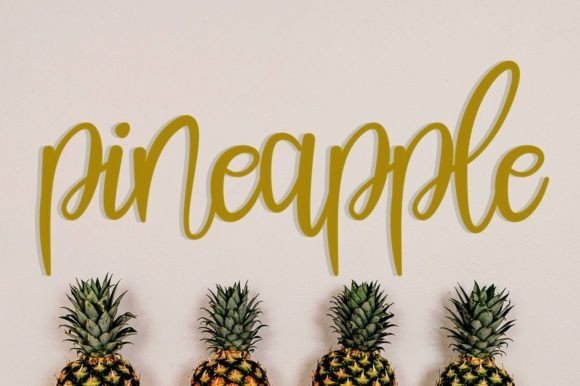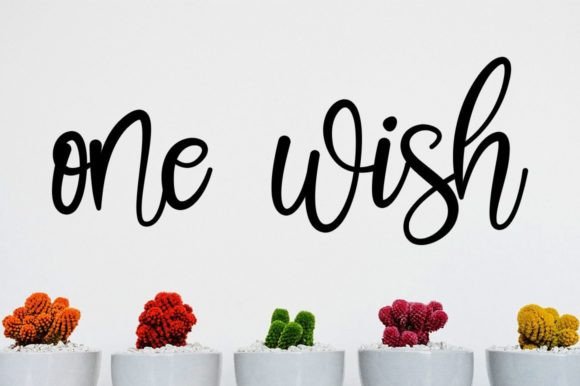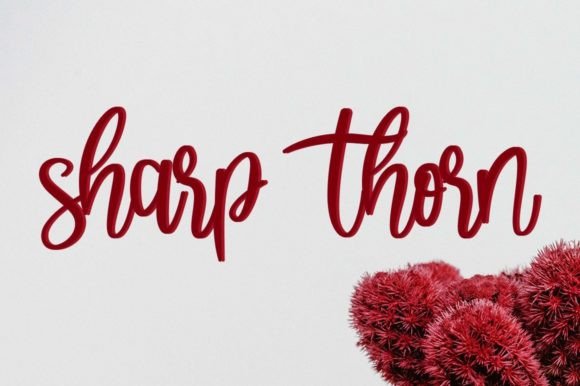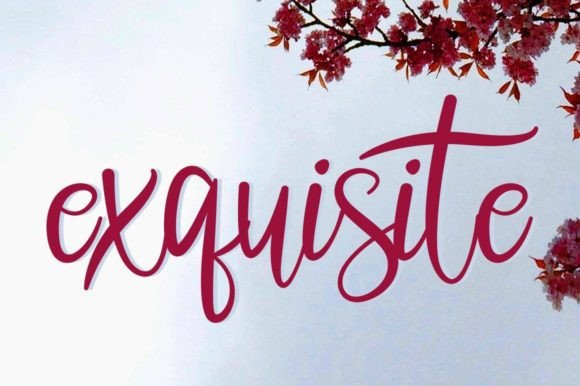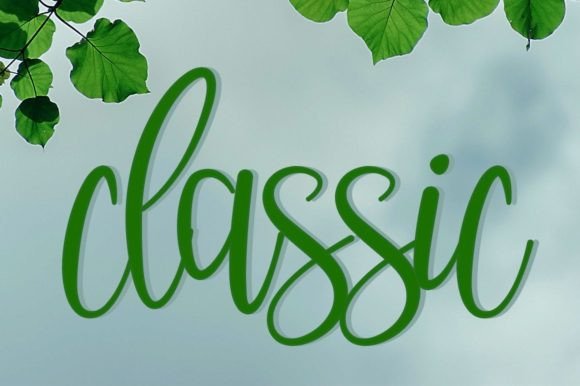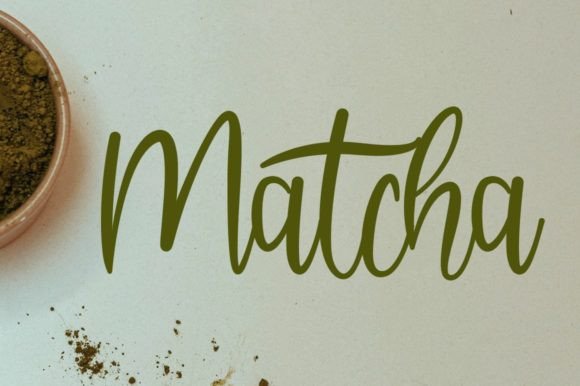
The Beauty of Fonts: How Beauty Font Can Elevate Your Designs
I’ll never forget the time I was working on a project for a client who wanted a elegant and sophisticated look. I had spent hours browsing through font libraries, but nothing seemed quite right. That was until I stumbled upon Beauty Font, a delicate, elegant, and flowing handwritten font that completely transformed my design. In this article, I’ll share my experience with Beauty Font, its features, and how you can use it to take your designs to the next level.
My Honest Review of Beauty Font
I’ve had the pleasure of working with Beauty Font on several projects, and here’s what I think:
- ✨ Beautiful and well-balanced characters: Each letter is carefully crafted to create a sense of elegance and sophistication.
- ✅ Versatile: Beauty Font matches a wide pool of designs, making it perfect for various creative projects.
- ✅ Easy to read: The font is clear and legible, even at smaller sizes.
However, I do have to mention a few quirks:
- 🤔 Limited availability of certain characters: Some special characters and glyphs are not available in all platforms.
- ⚠️ May not work well with bold or bright colors: Beauty Font is best paired with soft, pastel colors to maintain its elegance.
- Experiment with OpenType features like ligatures and stylistic alternates to add more flair to your text.
The Story Behind Beauty Font
Beauty Font was designed by a team of typographers who wanted to create a font that embodies elegance and sophistication. The font is inspired by traditional calligraphy and handwriting, with a modern twist. The designers aimed to create a font that’s versatile and easy to read, making it perfect for a wide range of creative projects.
| Font Name | Beauty Font |
| Author | rafly studio |
| What is Beauty Font? | Beauty Font is a delicate, elegant, and flowing handwritten font. |